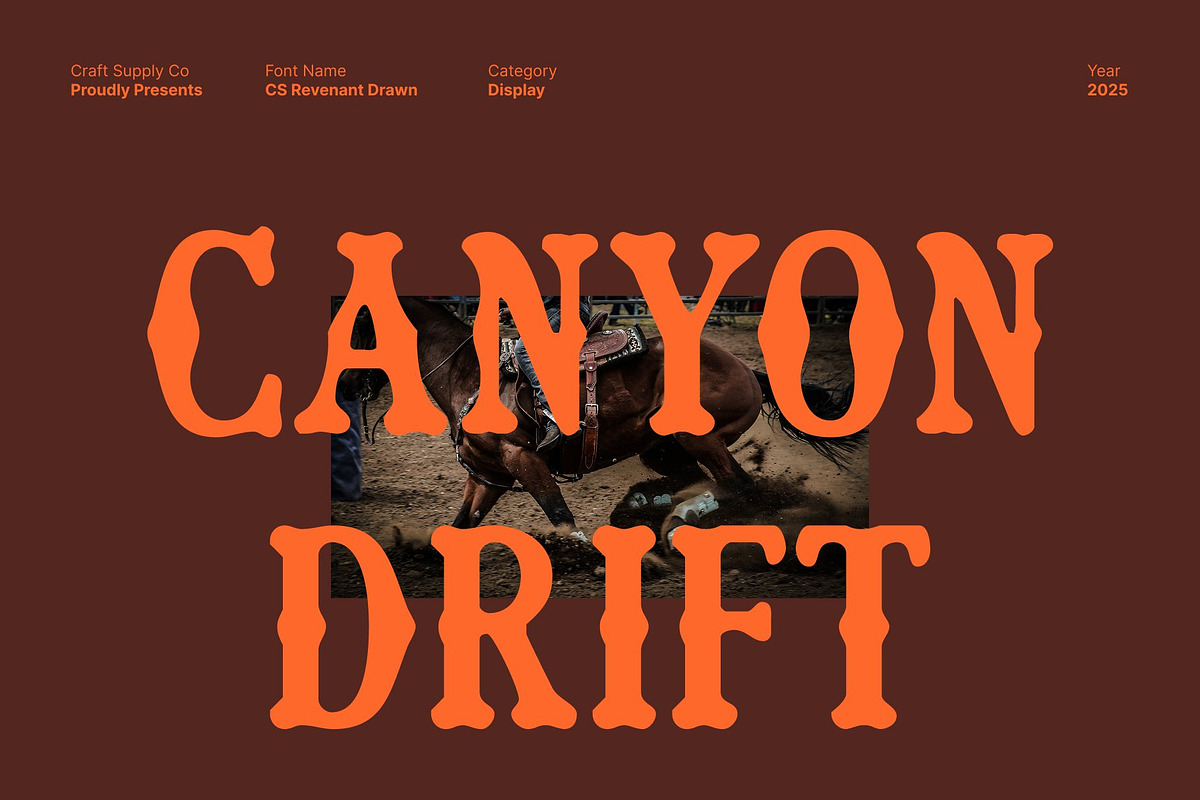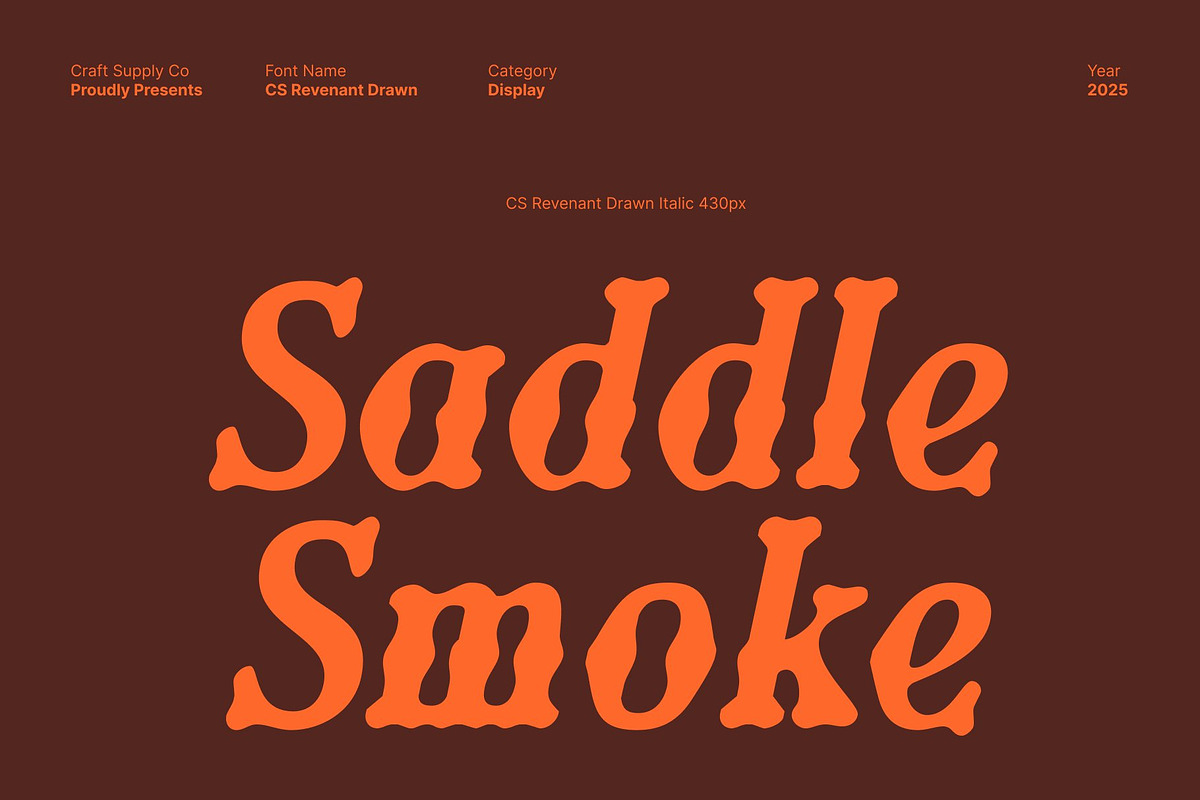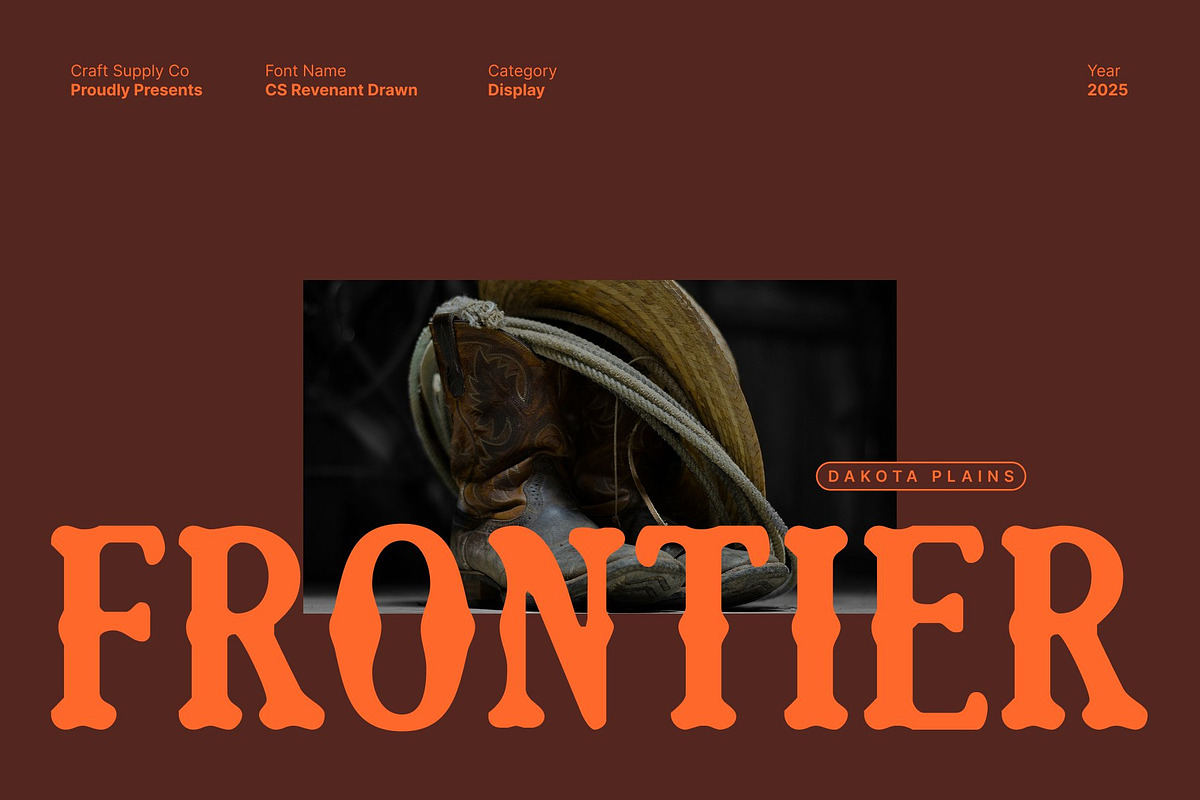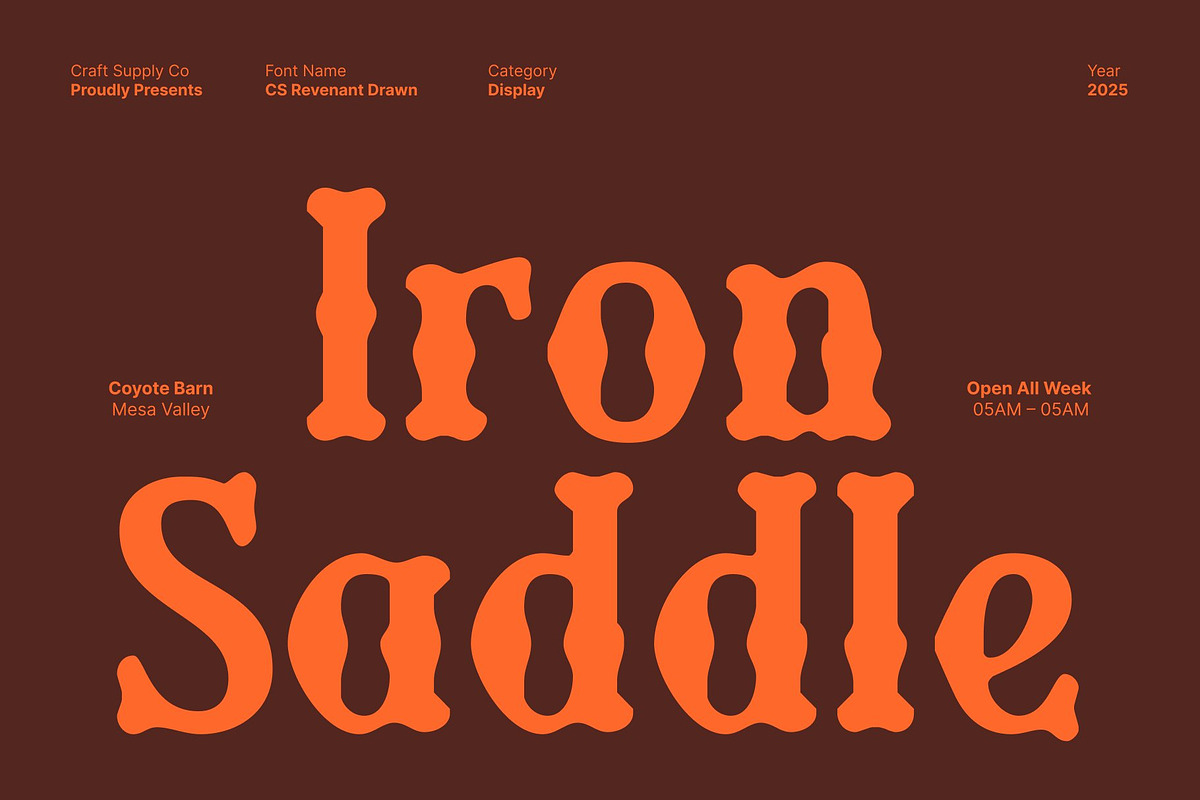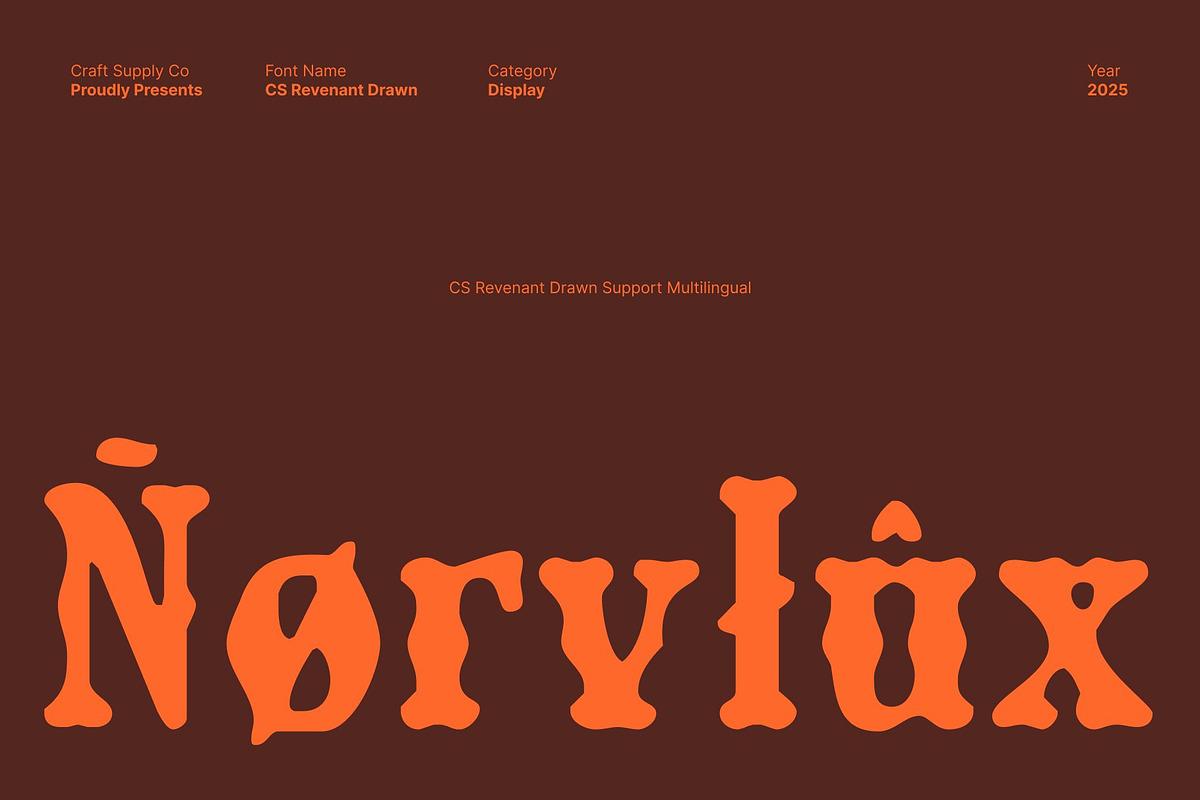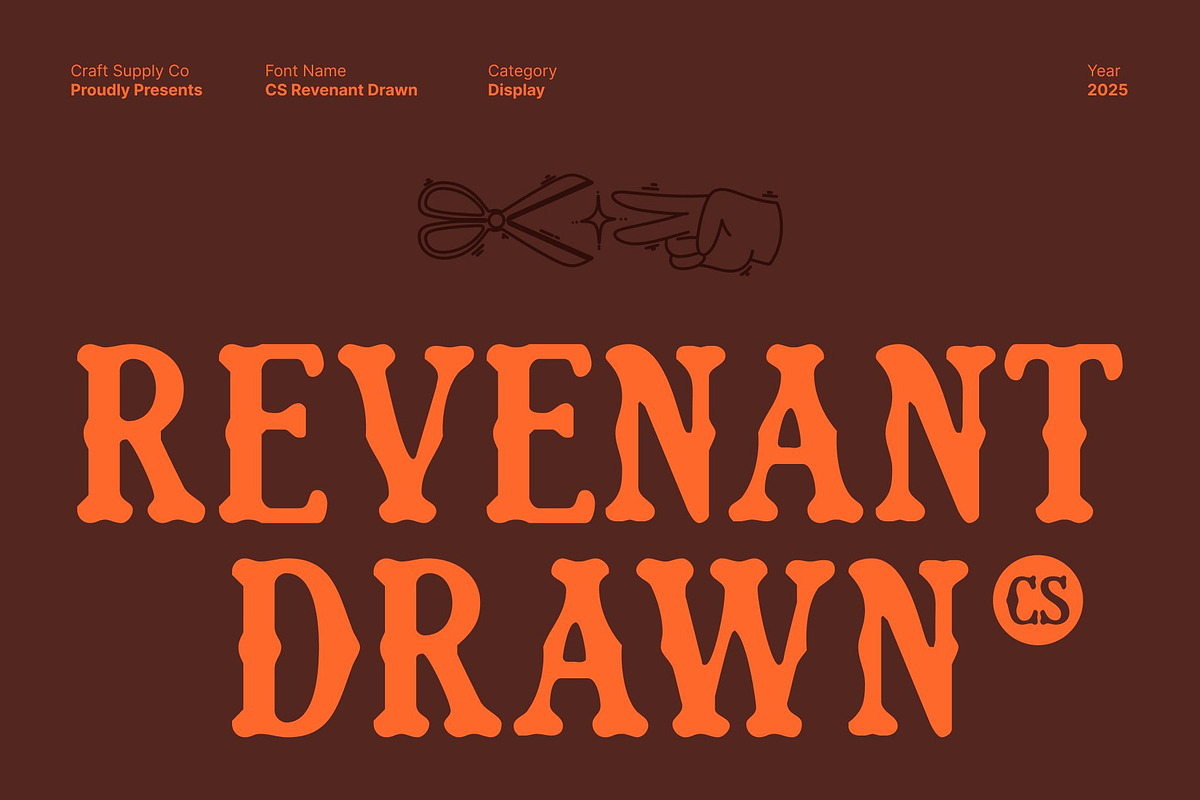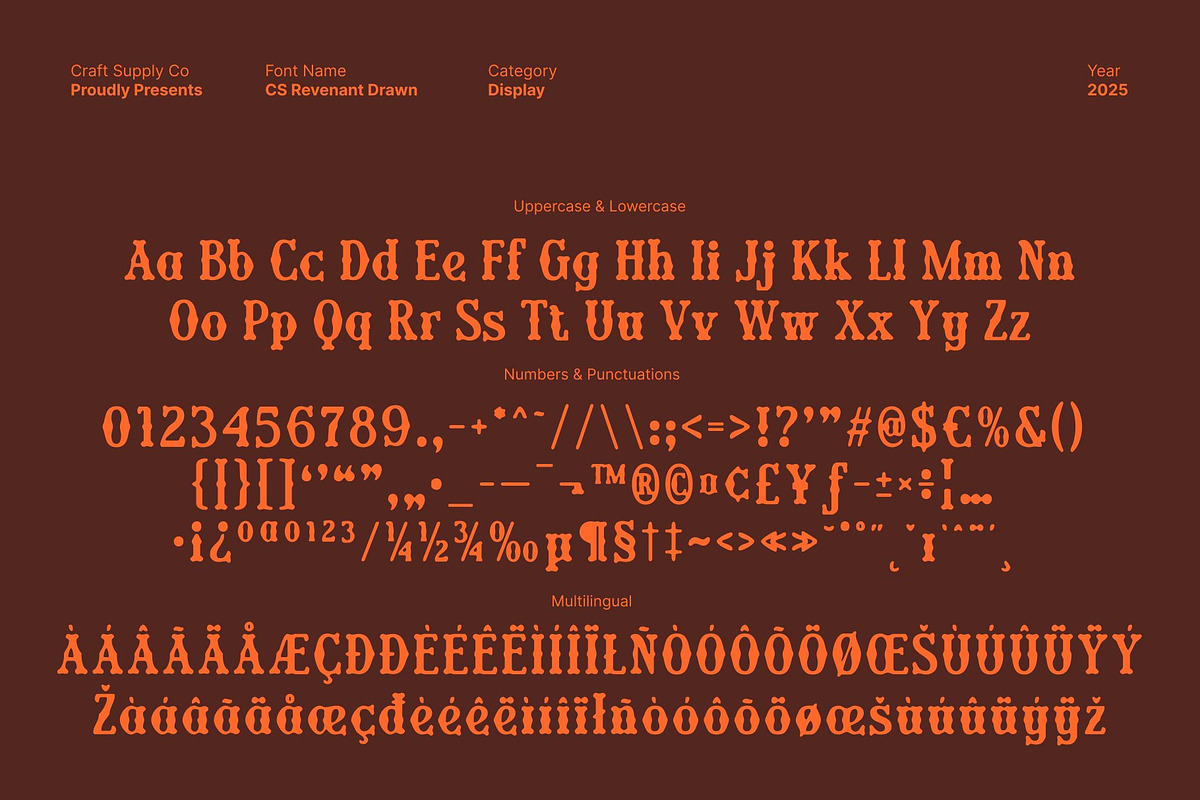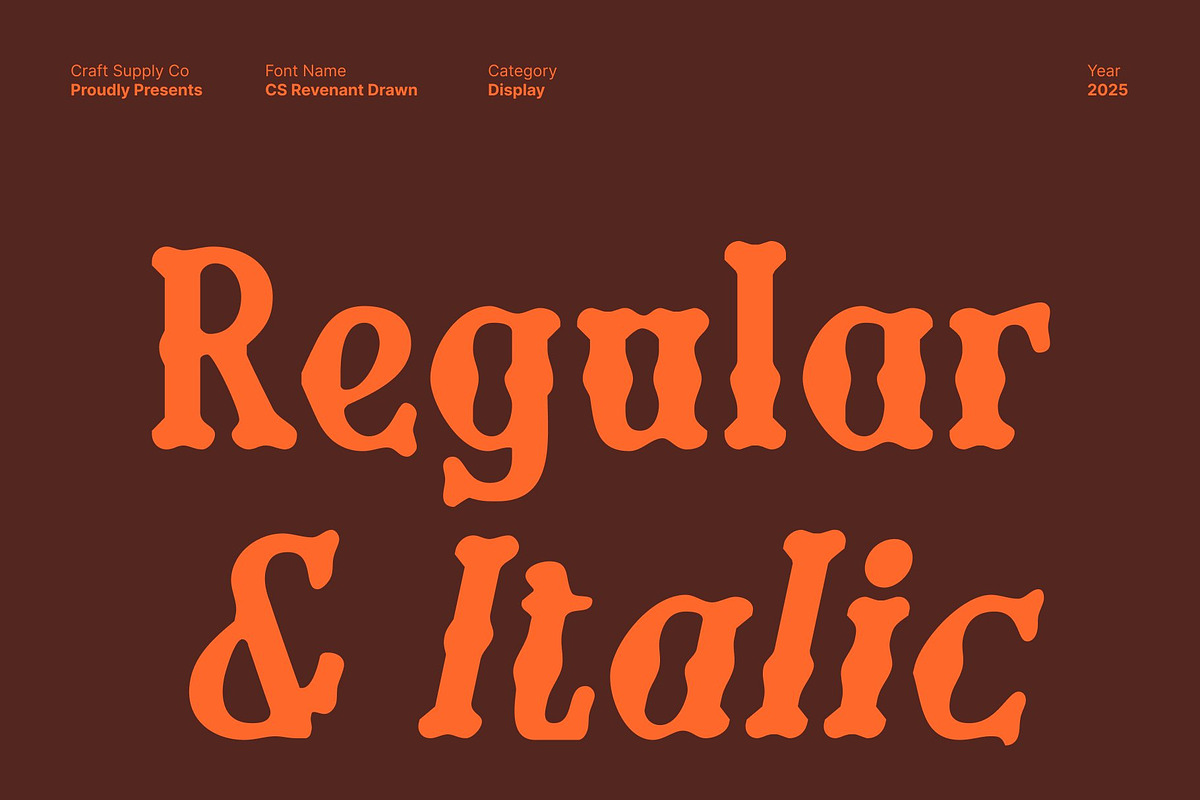
CS Revenant Drawn
CS Revenant Drawn – Vintage Tuscan Serif with Natural Drawn Texture
Classic Tuscan Letterforms with Vintage Heritage This inspired typeface blends traditional vintage design elements with the classic character of Tuscan serif styles. Its decorative shapes, split serifs, and distinctive details reflect rich cultural heritage and historical craftsmanship, creating a strong sense of authenticity and timeless appeal. Each letter feels ornate yet balanced, making the font visually striking and full of character.
Drawn Effect for Natural Stroke Texture The drawn effect introduces a natural stroke texture that enhances the font’s handcrafted feel. Subtle variations and organic lines give the typography a human touch, softening the decorative forms while preserving their historic strength. This texture adds depth and artistry, making the font feel alive, expressive, and genuinely crafted.
Perfect for Heritage, Decorative, and Storytelling Designs Ideal for vintage branding, historical posters, book covers, packaging, signage, and decorative editorial layouts, this font excels in projects that aim to communicate history, authenticity, and visual richness. Its Tuscan roots instantly evoke tradition and classic storytelling.
Authentic, Decorative, and Artistically Crafted By combining Tuscan serif elegance with natural drawn strokes, this font delivers a unique blend of history and artistry. It’s the perfect choice for designers seeking a decorative typeface that feels authentic, culturally rich, and visually captivating with a handcrafted vintage soul.